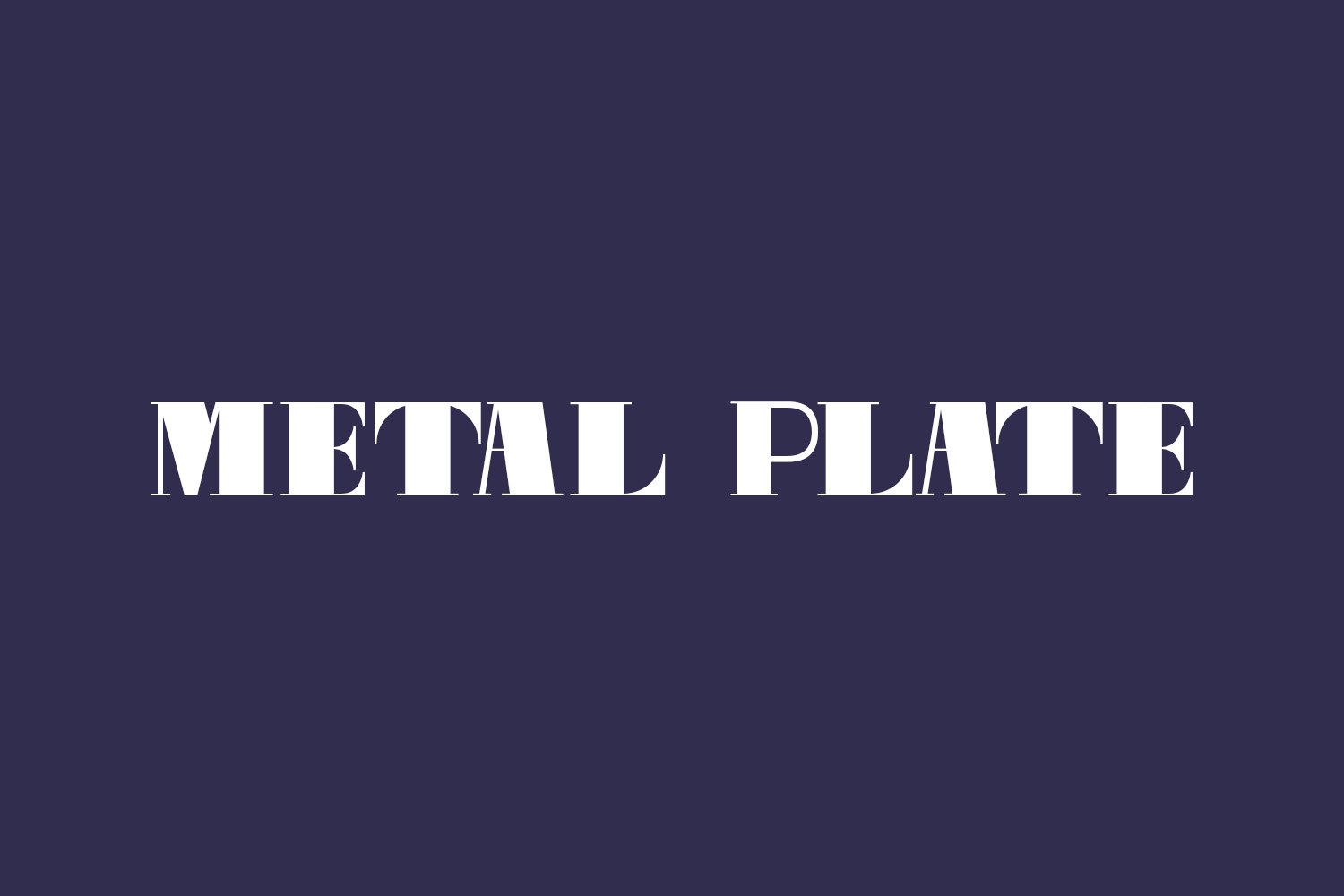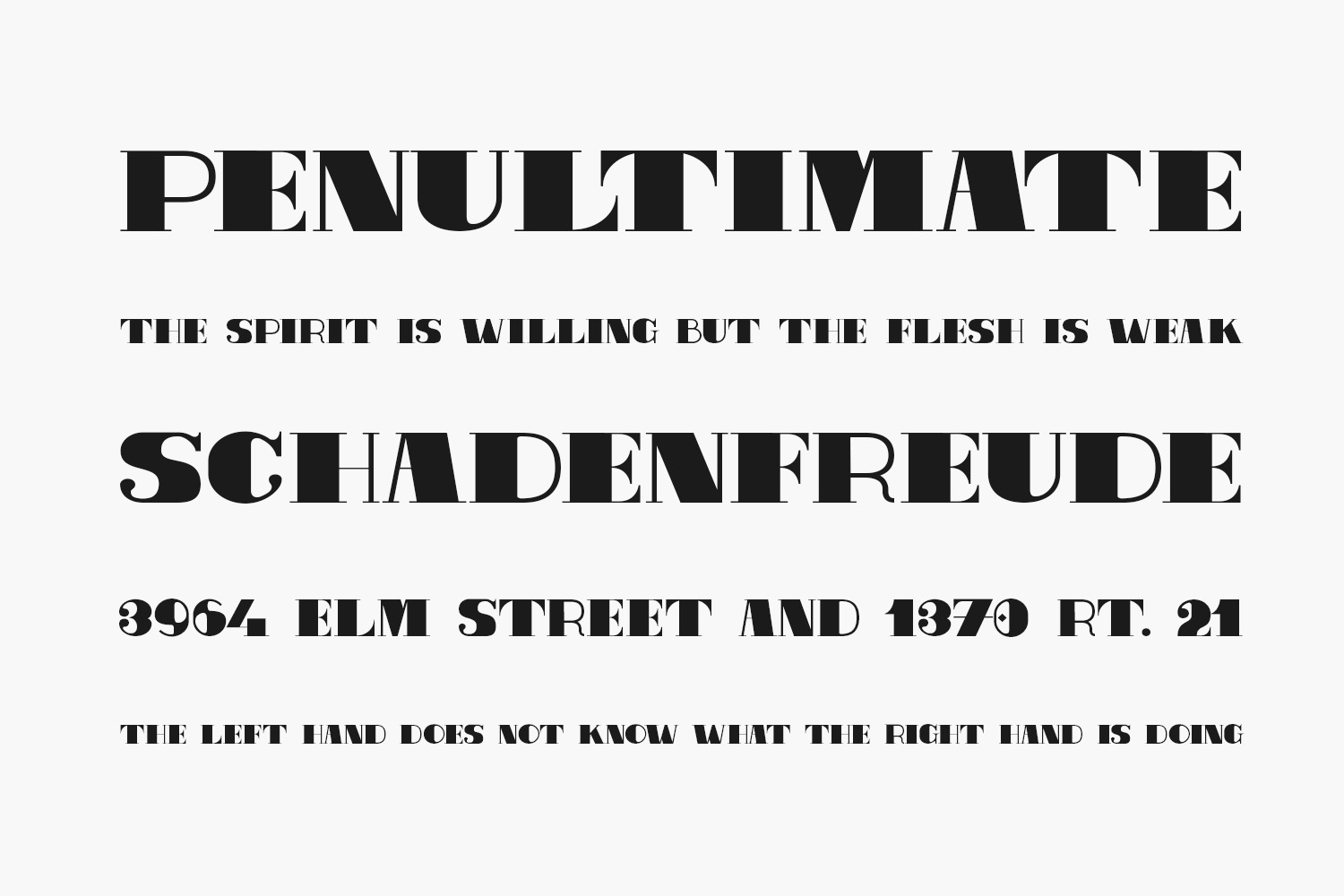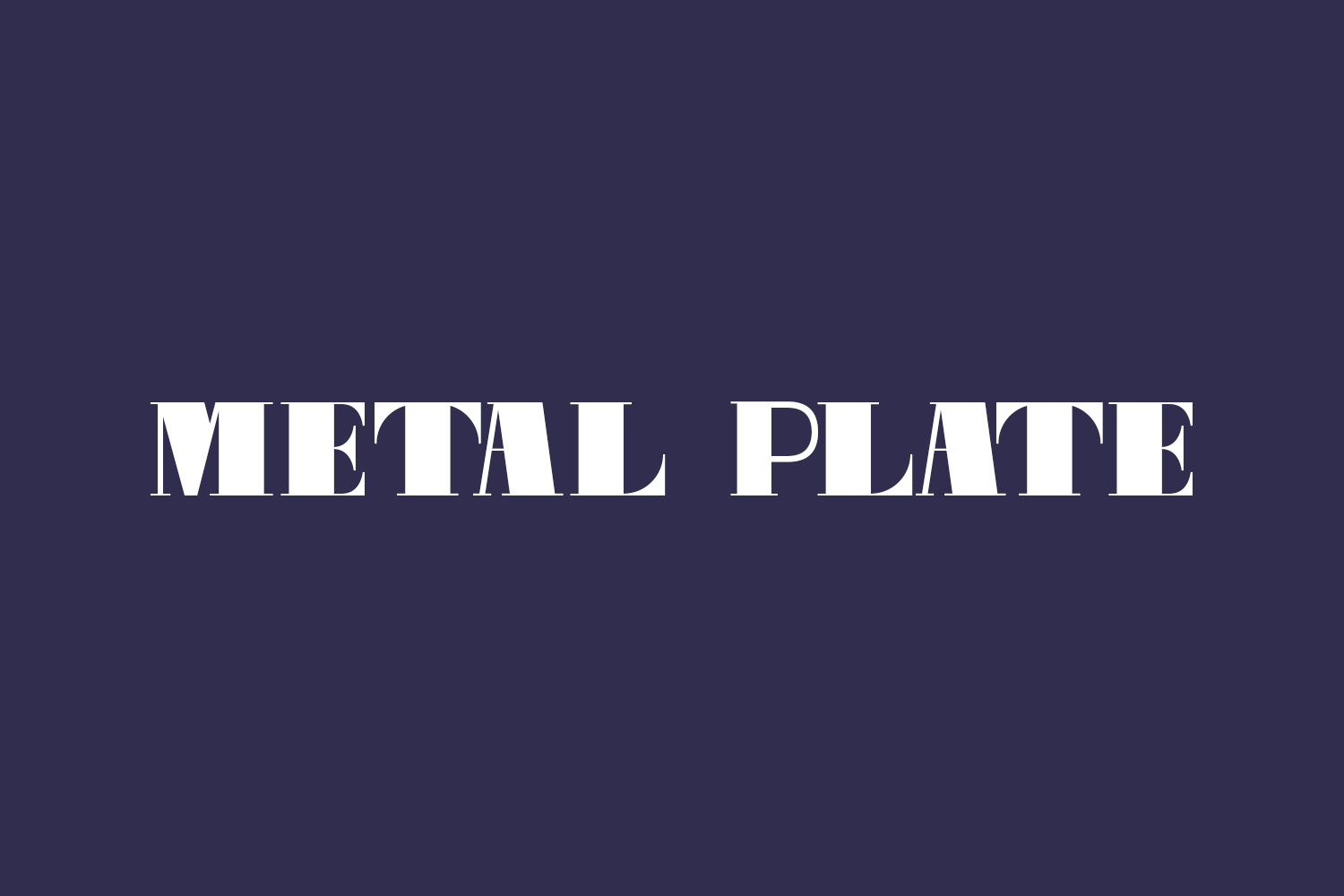
Metal Plate Free Font is a bold and solid display font. With this font, you get extra thick stems to play around with, or maybe you just want some big dark letters with a lot of impacts? Metal Plate has you covered. Metal Plate Free Font was designed by Thor Christopher Arisland and is free for personal use only. Please purchase the full version for commercial use.